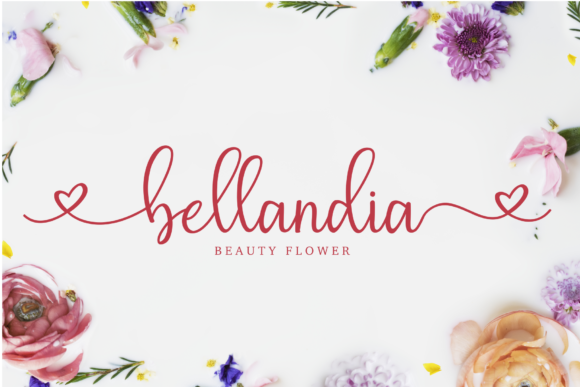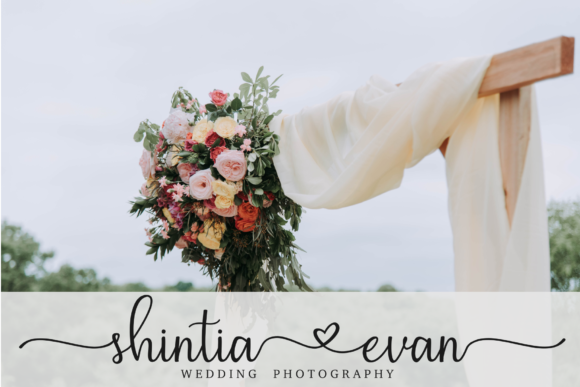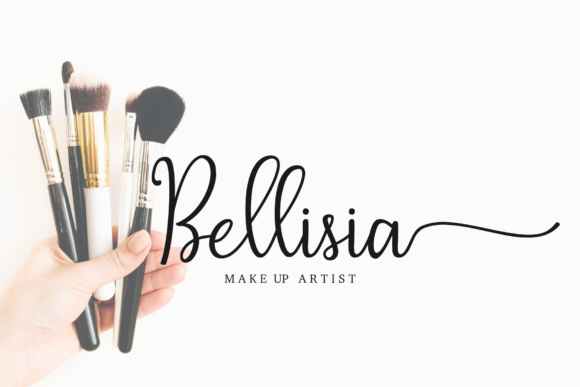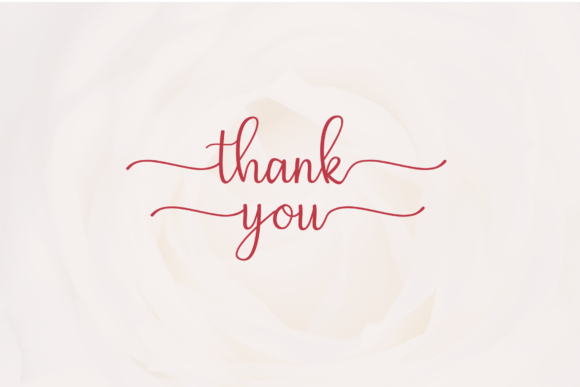
Hello Betty Font: The Ultimate Romantic Calligraphy Typeface
Are you looking for a font that adds a touch of luxury and romance to your design projects? Look no further than Hello Betty Font! This beautiful calligraphy typeface is perfect for designers and crafters who want to create stunning visuals that exude elegance and sophistication.
What is Hello Betty Font?
Hello Betty Font is a romantic and sweet calligraphy typeface that features characters that dance along the baseline. This unique design element gives the font a playful and whimsical feel that’s perfect for creating eye-catching designs. The font is designed to add a luxury spark to any project, making it ideal for use in a variety of applications, from wedding invitations and branding materials to packaging and advertising.
Key Features of Hello Betty Font
So, what makes Hello Betty Font so special? Here are just a few of the key features that set it apart:
- Romantic and Sweet Design: Hello Betty Font features a romantic and sweet design that’s perfect for creating elegant and sophisticated visuals.
- Calligraphy Typeface: The font is a calligraphy typeface, which means it features beautiful, flowing lines and characters that are perfect for creating eye-catching designs.
- Characters that Dance Along the Baseline: The characters in Hello Betty Font are designed to dance along the baseline, giving the font a playful and whimsical feel that’s perfect for creating eye-catching designs.
How to Use Hello Betty Font
Hello Betty Font is a versatile typeface that can be used in a variety of applications. Here are just a few ideas for how you can use this beautiful font:
- Wedding Invitations: Hello Betty Font is perfect for creating beautiful and elegant wedding invitations that set the tone for a romantic and sophisticated wedding.
- Branding Materials: The font is ideal for use in branding materials, such as logos, business cards, and letterheads, where you want to create a luxurious and sophisticated image.
- Packaging: Hello Betty Font can be used to create eye-catching packaging that stands out on store shelves and adds a touch of luxury to your products.
- Advertising: The font is perfect for use in advertising, where you want to create eye-catching and memorable ads that grab the attention of your target audience.
Why Choose Hello Betty Font?
So, why should you choose Hello Betty Font for your design projects? Here are just a few reasons why this font is a great choice:
- Unique and Eye-Catching Design: Hello Betty Font features a unique and eye-catching design that’s perfect for creating stunning visuals that grab the attention of your target audience.
- High-Quality and Professional: The font is high-quality and professional, making it perfect for use in a variety of applications, from branding materials to packaging and advertising.
- Luxury and Sophistication: The font exudes luxury and sophistication, making it perfect for creating designs that are elegant and refined.
| Author | alanstudio99 |
In conclusion, Hello Betty Font is a beautiful and romantic calligraphy typeface that’s perfect for designers and crafters who want to create stunning visuals that exude elegance and sophistication. With its unique and eye-catching design, high-quality and professional features, and ease of use, this font is a great choice for a variety of applications, from wedding invitations and branding materials to packaging and advertising. So why wait? Download Hello Betty Font today and start creating your own stunning designs!